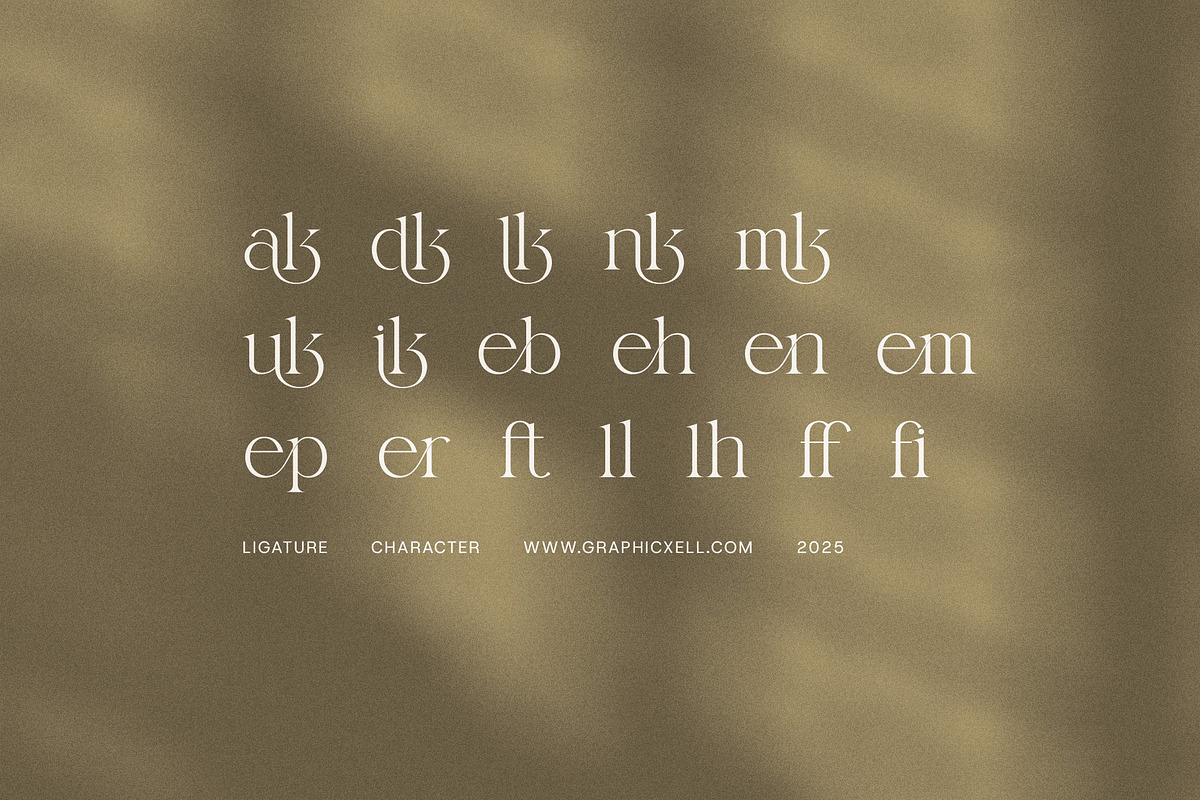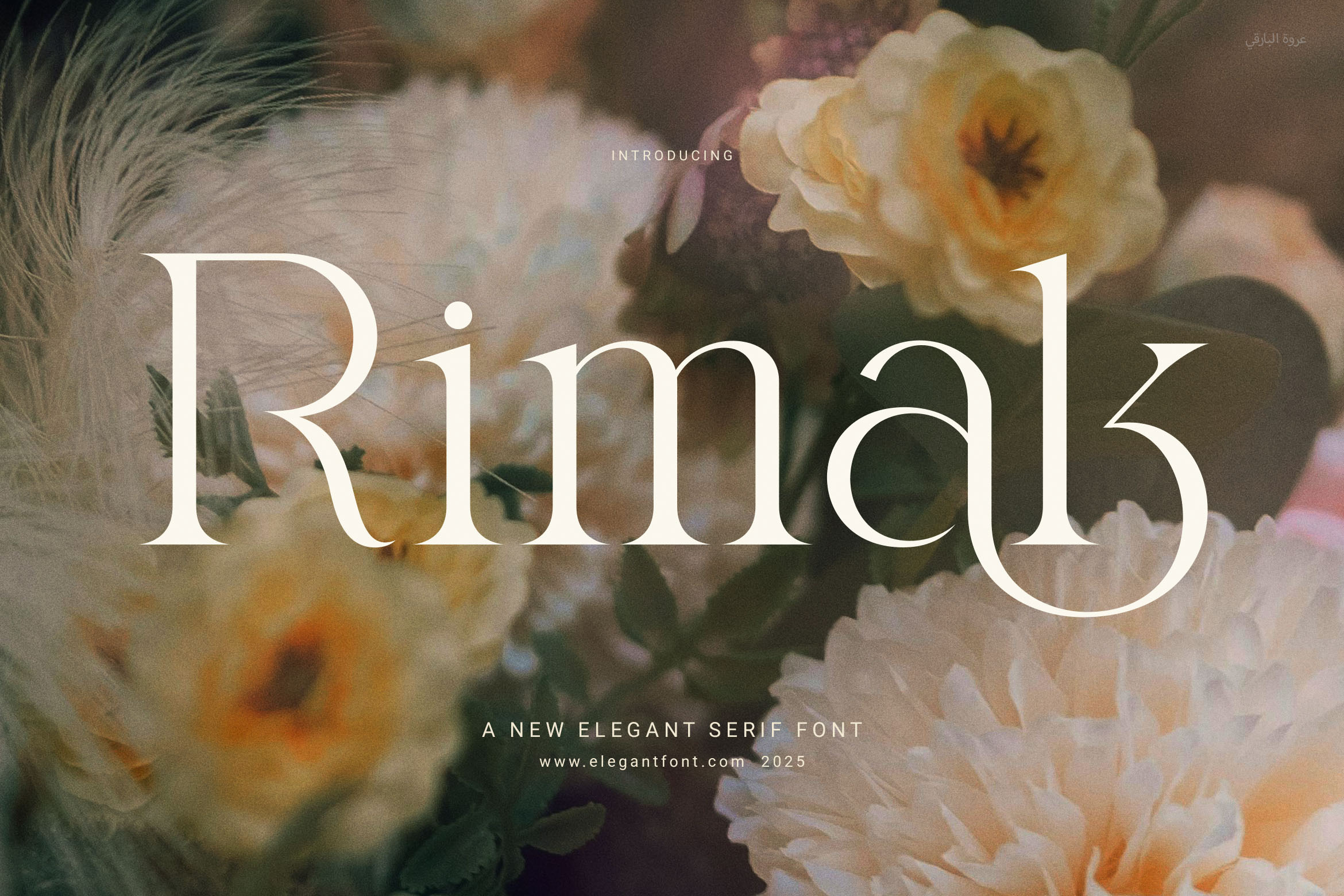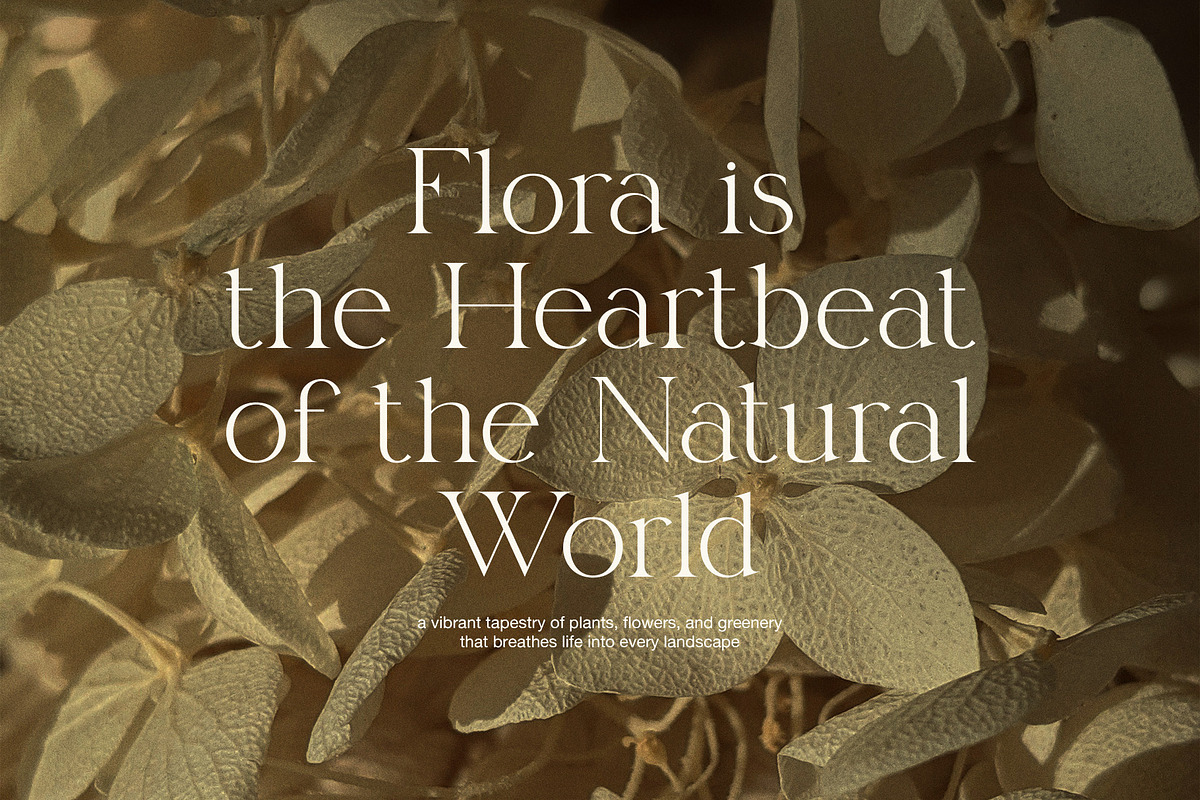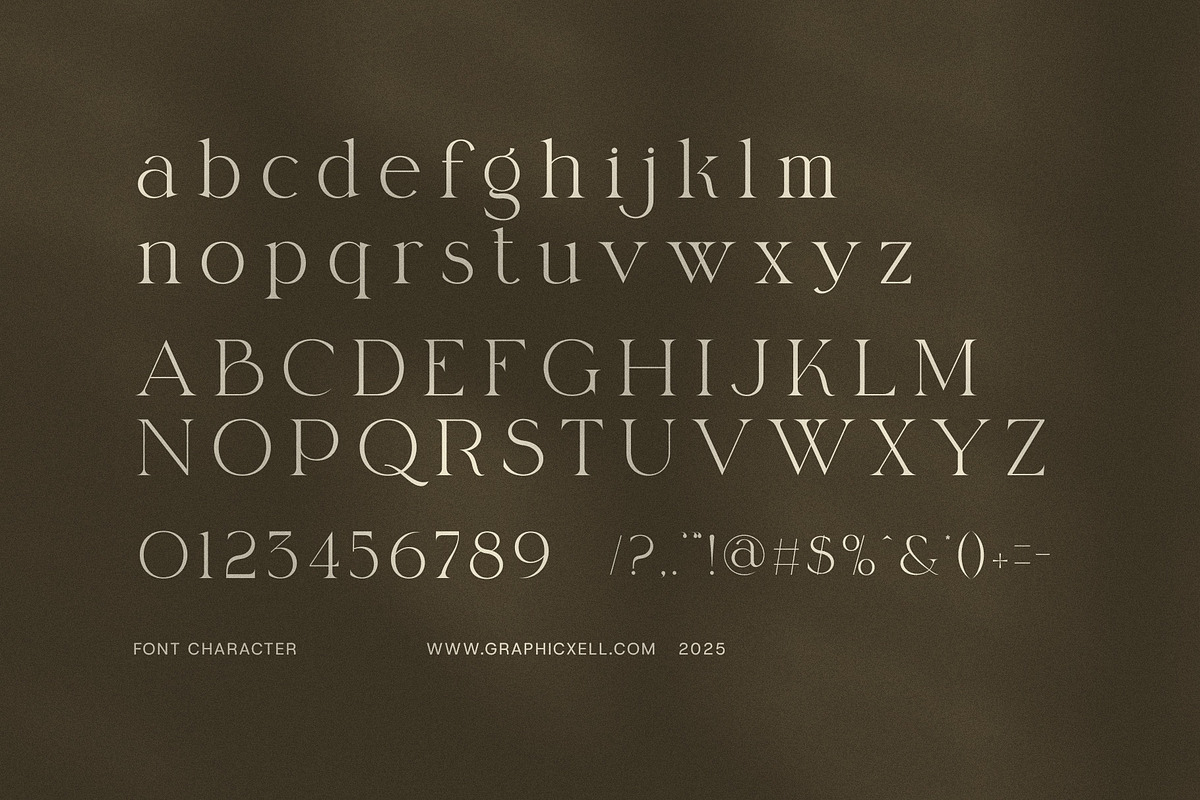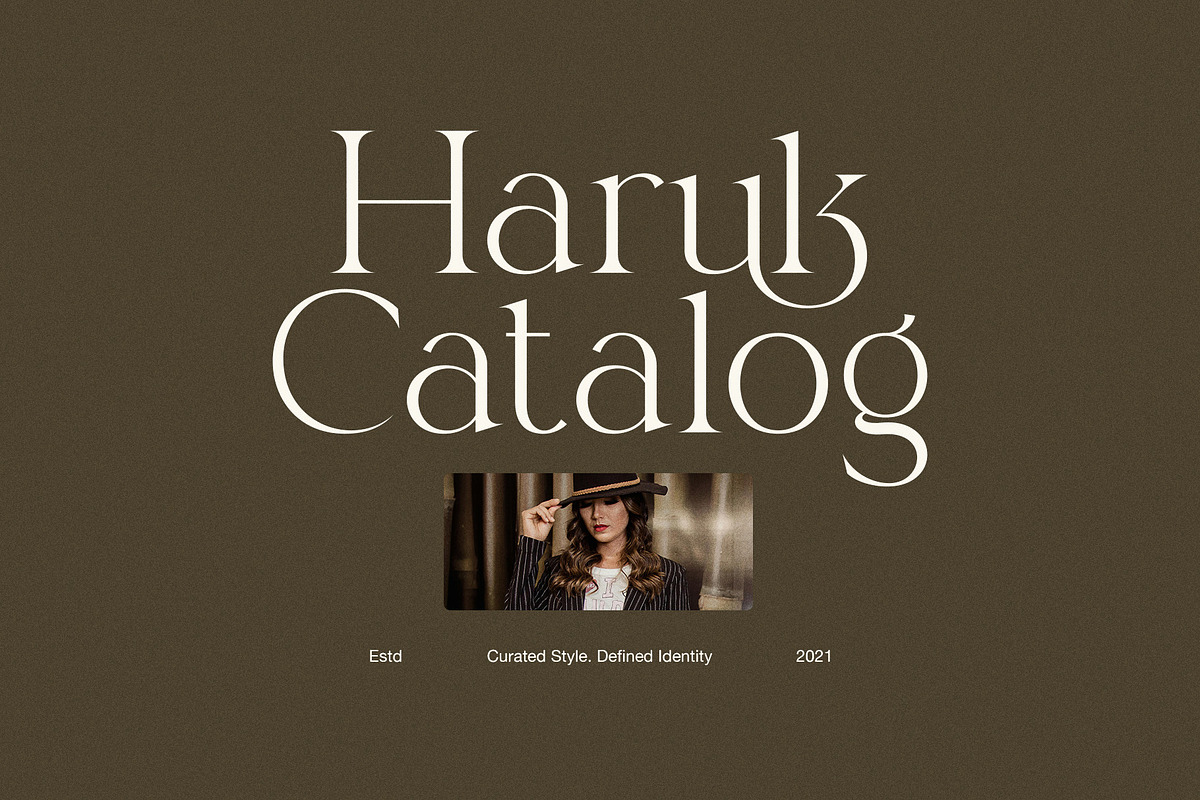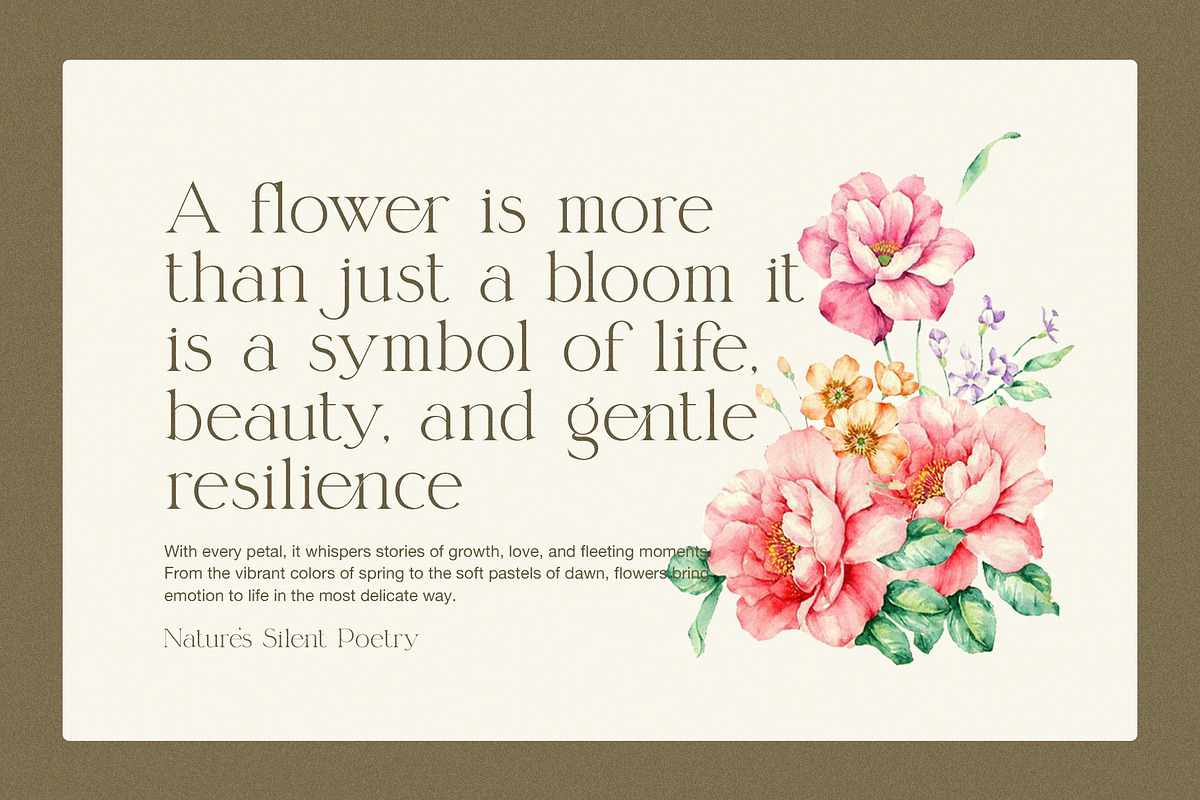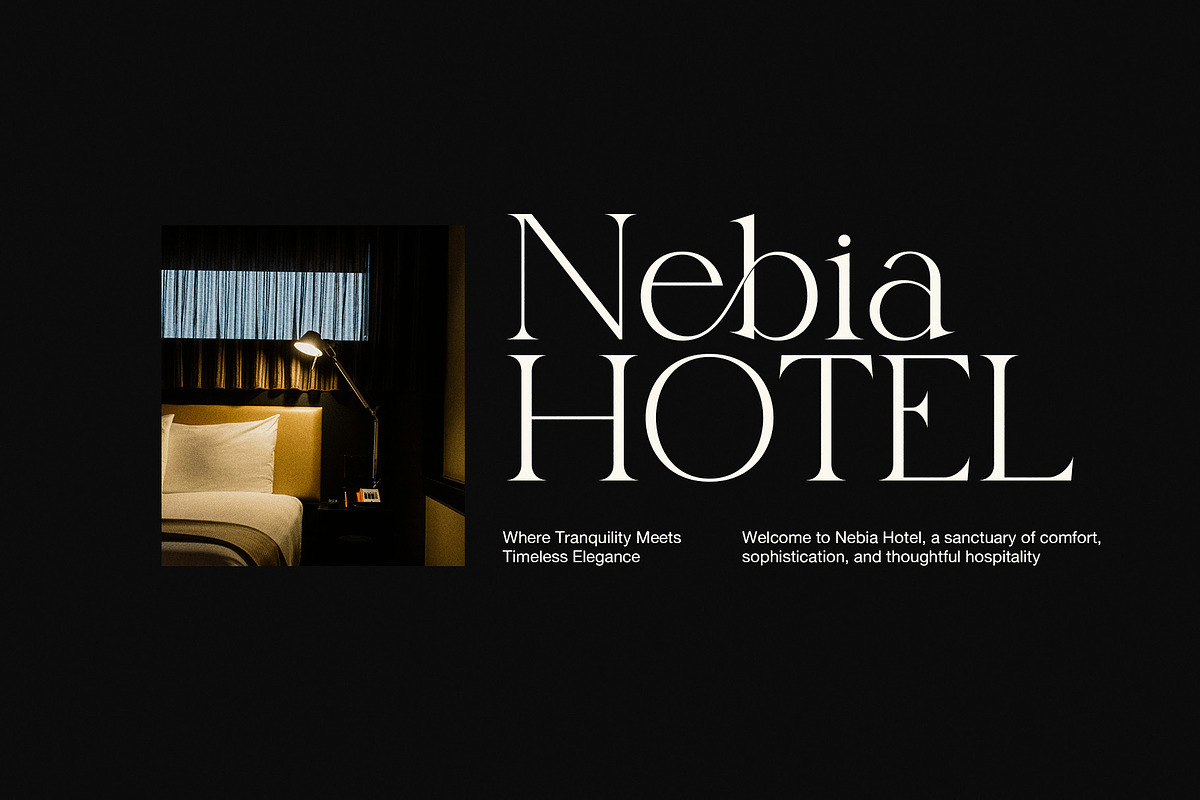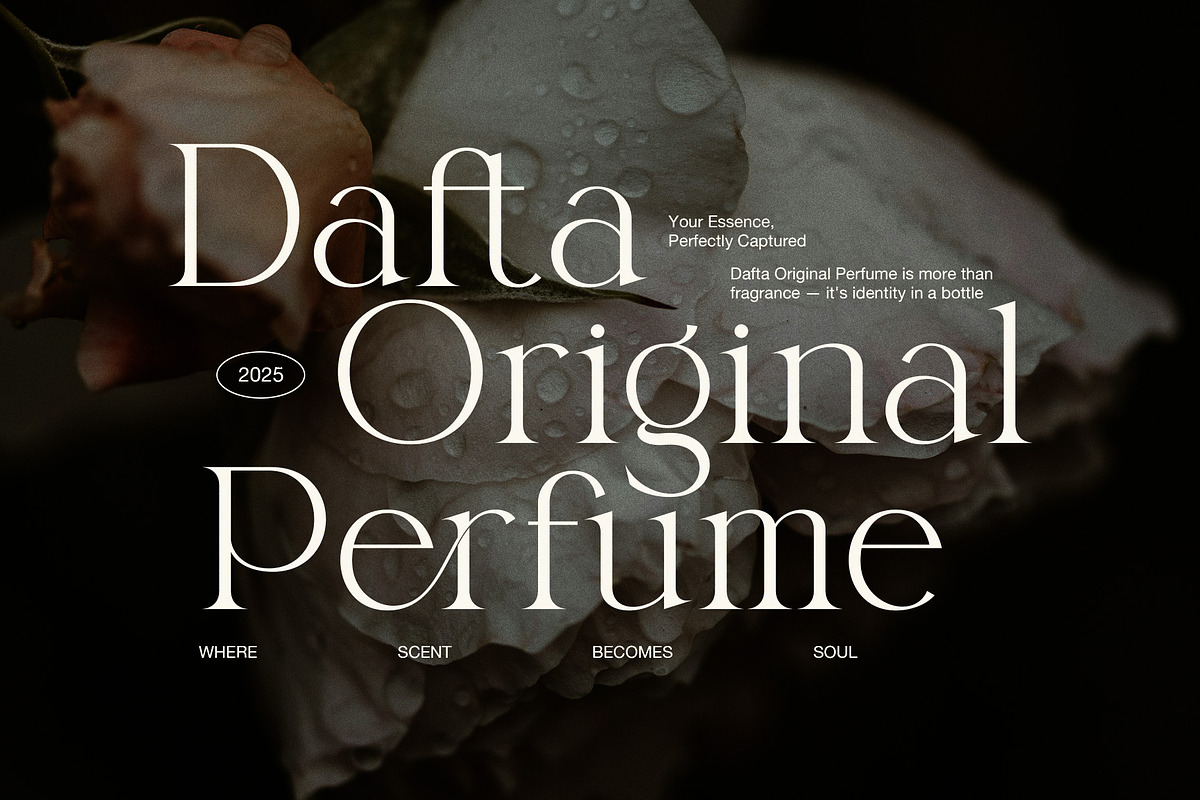
Rimak Elegant Serif Font
✦ Rimak Elegant Serif Font – Style Meets Simplicity ✦
Rimak Elegant Serif Font brings a modern take on classic serif design. Created with smooth curves, balanced proportions, and thoughtful spacing, Rimak gives your text a graceful yet bold look. Whether you're designing a brand, building a website, or creating packaging, this font helps your work feel both clean and refined.
What makes Rimak stand out is its functional ligatures and natural flow. Each letter fits perfectly with the next, creating text that looks polished without feeling stiff. Because of its elegant shape and versatile design, Rimak works beautifully across many different types of projects.
For instance, you can use it for stylish logos, editorial layouts, product packaging, or even food and fashion branding. Additionally, its readability ensures it performs just as well in print as it does on screens. So no matter your project, Rimak delivers both function and beauty.
✦ Why You’ll Love Rimak:
Modern serif with timeless charm
Designed for logos, websites, and social media
Smooth ligatures for a seamless text experience
Perfect for magazines, fashion, and beauty products
Professional look with an easy-to-read feel
Fits well in both minimalist and bold layouts
If you're looking for a font that blends elegance with usability, Rimak is the perfect choice. It's easy to work with, flexible for many styles, and made to help your designs stand out with style.